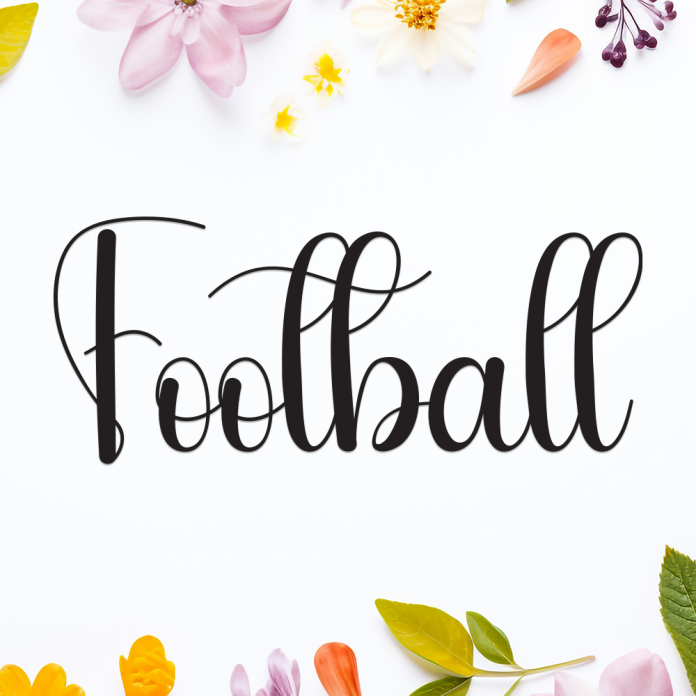
Football | Script Font
Football is an energetic handwriting font inspired by the bold spirit of the game. With its casual strokes and dynamic flow, it captures the excitement and passion of sports, making it perfect for athletic-themed designs.
Sport-inspired handwritten style
Perfect for posters, team logos, and event banners
Playful yet bold letterforms